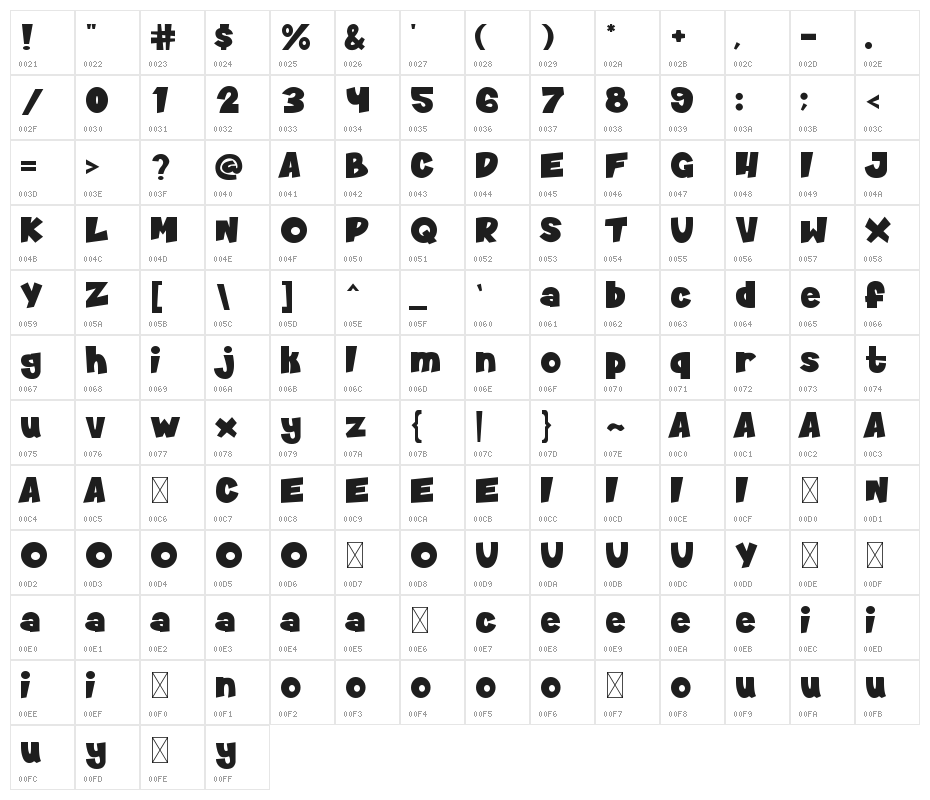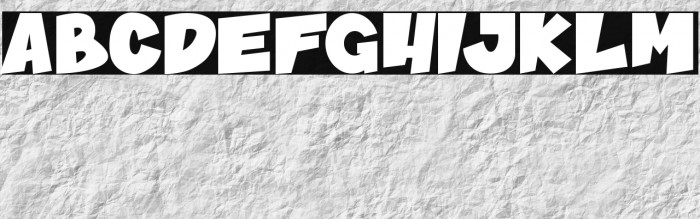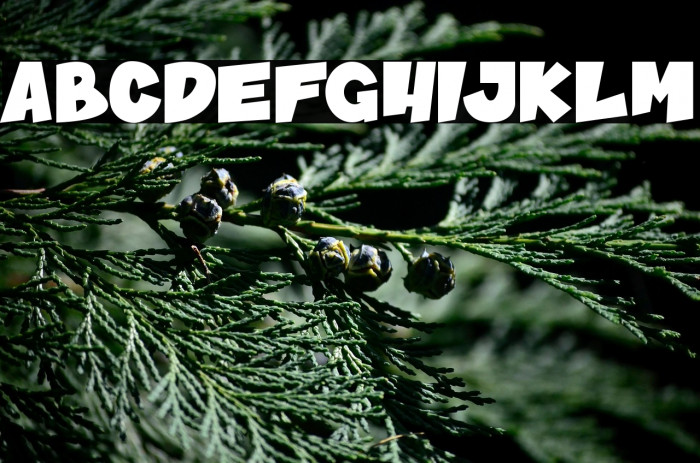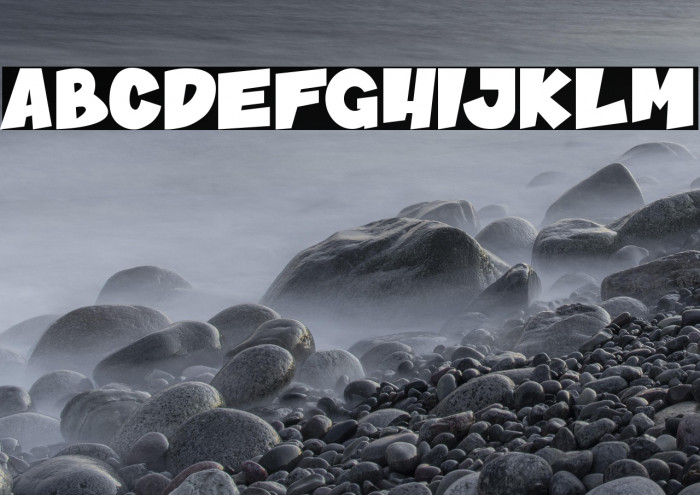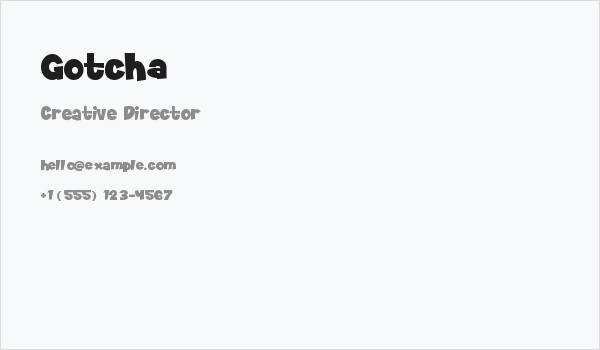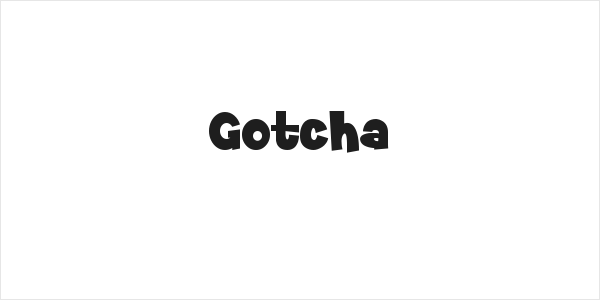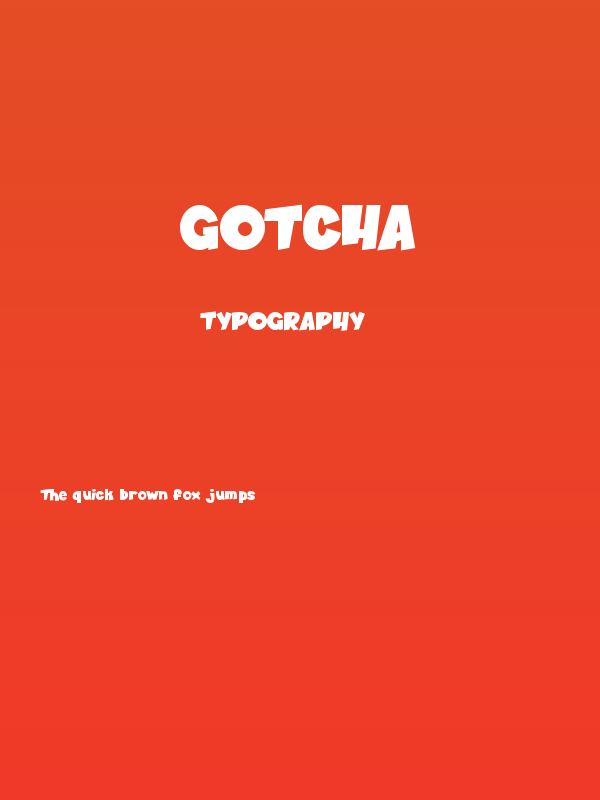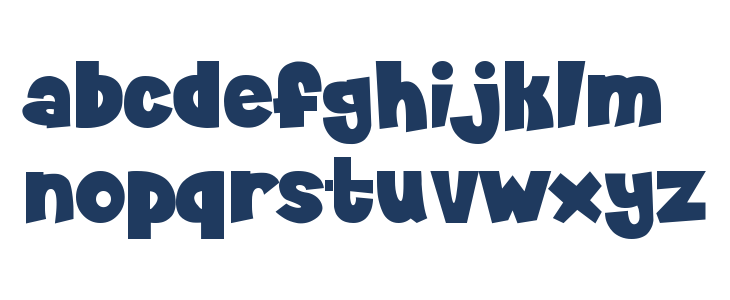
Gotcha Font
Gotcha Description
This playful and bold font features exaggerated, chunky letterforms that convey a sense of fun and energy. The characters are designed with a slight tilt and irregular shapes, giving them a whimsical and dynamic appearance. The uppercase and lowercase letters maintain a consistent style, with rounded edges and a strong presence. The numbers and special characters follow the same bold and lively design, making them stand out. This font is ideal for projects that require a touch of humor and creativity, such as children's books, comic strips, or playful branding.
| Proposed Projects | Ideal for children's books, comic strips, playful branding, and creative posters. |